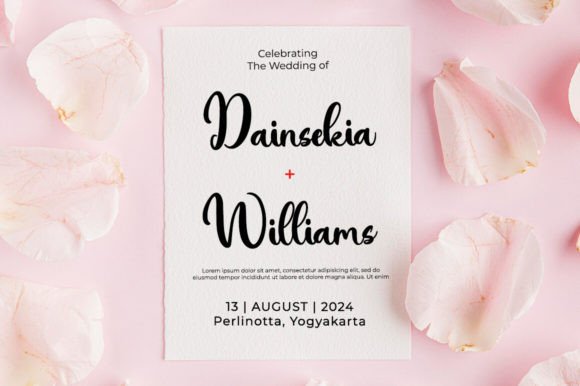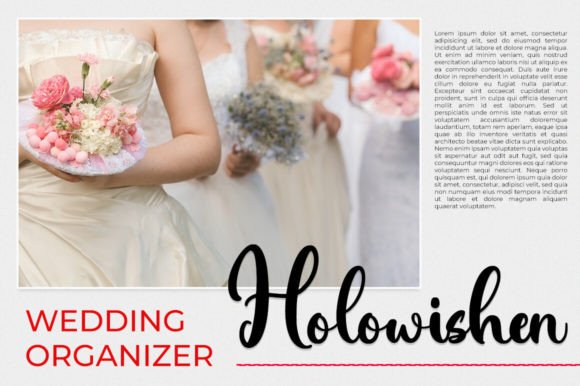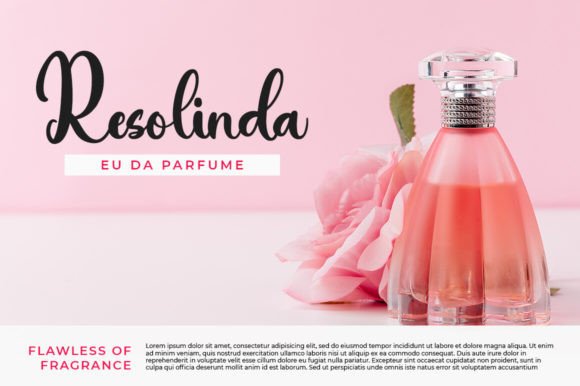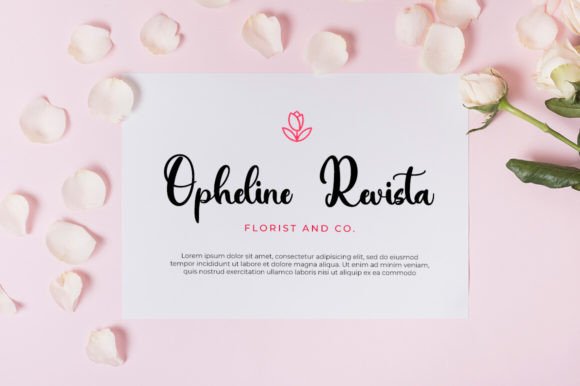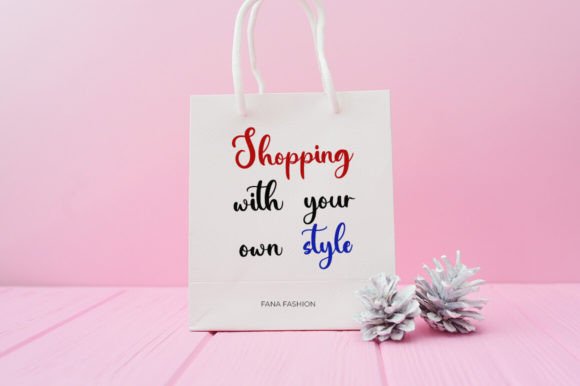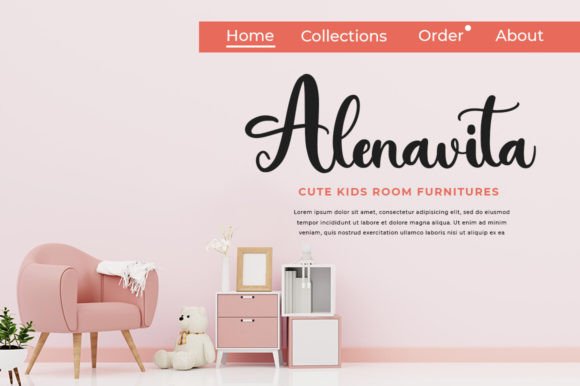
Introduction to Revitalona Font
Have you ever been working on a creative project, pouring your heart and soul into every detail, only to realize that the right font is missing to bring it all together? This is a problem many designers face, but what if I told you that there’s a solution that can elevate your designs and make them truly stand out? Enter the Revitalona Font, a beautiful and elegant handwritten font that’s perfect for adding a touch of personality to your designs.
Whether you’re working on a wedding invitation, a thank you card, or a logo, the Revitalona Font is a valuable resource that can help you create high-quality designs that exude style and sophistication. With its unique and transparent background, this font is perfect for designers who want to add a creative twist to their projects. And the best part? It’s available for free download, making it an accessible design resource for anyone looking to take their designs to the next level.
Key Features of Revitalona Font
- Unique, hand-drawn design suitable for creative projects requiring a personal touch
- High-quality font with transparent background, ideal for overlaying on images or videos
- Features a high-resolution design, suitable for use in print and digital applications at 300 DPI or higher
- Perfect for use in various creative projects, such as branding, advertising, and editorial design
- Designed to be versatile and easy to use, making it an excellent choice for designers of all skill levels
Honest Review: Revitalona Font
I recently had the chance to work with the Revitalona Font, and I must say it’s a great addition to any design project. As a designer, I’m always on the lookout for high-quality fonts that can elevate my work, and Revitalona Font definitely delivers.
What works well with this font is its versatility and playfulness. It’s perfect for creating a unique and modern look for your creative project. The font is available for free download, which is a big plus in my book. The transparent background option also allows for seamless integration with other design elements.
Here are some of the features that stood out to me:
- Playful and modern aesthetic
- The font may not be suitable for formal or traditional designs
- Some users may find the font too playful or distracting
Overall, I’m impressed with the Revitalona Font and would definitely recommend it for designers working on creative projects. It’s a great resource to have in your toolkit, and with a little creativity, you can create some amazing designs.
Tips for Getting the Most Out of Revitalona Font
Use the Revitalona Font in combination with other design resources, such as images and graphics, to create visually appealing designs. Experiment with different font sizes and styles to achieve the desired effect. Consider using a transparent background to make the text stand out.
Common Use Cases for Revitalona Font
The Revitalona Font is ideal for creative projects that require a high-quality, modern font. It’s commonly used for branding, advertising, and other design-related purposes. You can also use it for personal projects, such as resumes or portfolios, to give them a professional look.
Alternatives to Revitalona Font
Alegreya Font
Alegreya is a high-quality serif font ideal for creative projects requiring a sophisticated and elegant touch. It’s available for free download and features a transparent background, making it perfect for overlaying on images or videos. When to use: For formal or professional designs where a classic look is desired.
Comparison to Revitalona Font: Alegreya has a more traditional feel, while Revitalona Font has a more modern and stylized appearance.